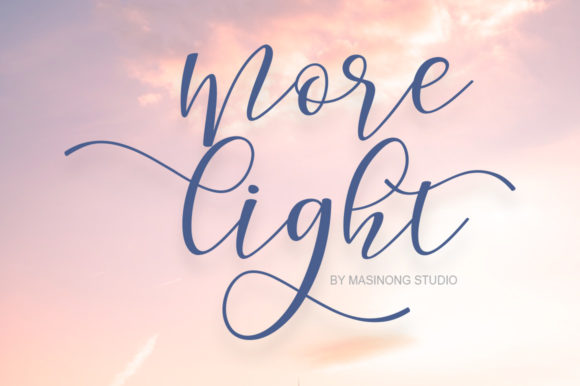
Journey into the world of Morelight Script Font, a modern calligraphy masterpiece that captures the essence of handwritten artistry. Feel the warmth of its decorative characters as they dance along the baseline, creating a visual symphony that captivates the eyes. Morelight isn't just a font; it's an invitation to express your creativity and make a statement with every word you write.
Picture this: a greeting card adorned with Morelight's elegant swirls, carrying heartfelt messages to loved ones. The curves and flourishes of each letter intertwine like a delicate dance, adding an enchanting touch to any occasion. Or envision business cards that radiate professionalism and sophistication, showcasing your brand's unique identity through Morelight's refined strokes.
With Morelight Script Font, quotes take on a new life. The font's natural flow and expressive style bring depth and emotion to every word, transforming ordinary text into artistic masterpieces. Imagine your favorite quotes transformed into stunning visuals, ready to inspire and captivate on social media or personal projects.
The possibilities are endless with Morelight. Its versatility shines in branding materials, where it effortlessly elevates your brand's image. Logos, letterheads, and marketing collateral come alive with Morelight's charming touch, leaving a lasting impression on your audience. Posters and invitations become works of art, inviting guests to events with a touch of elegance and whimsy.
Morelight Script Font is a treasure trove of creativity, ready to unlock your imagination. Its handwritten charm adds a personal touch to every project, making it an essential tool for designers, artists, and anyone seeking to make a statement with their words. Embrace the magic of Morelight and transform your digital creations into captivating works of art.